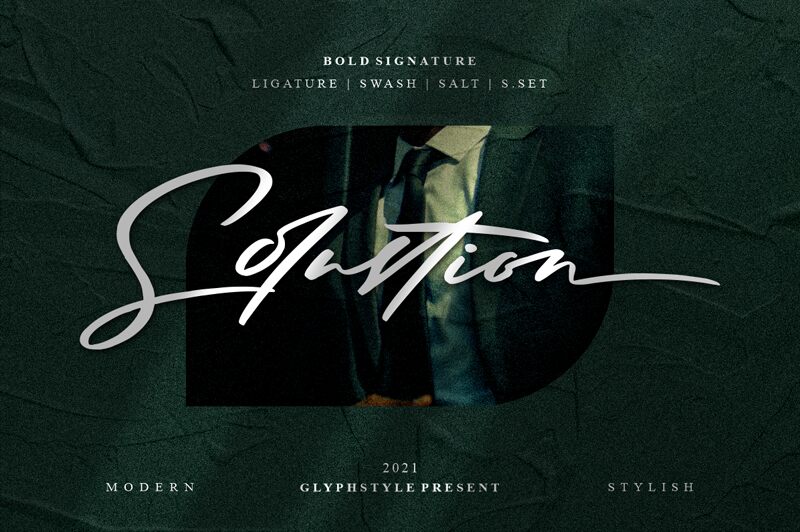
GlyphStyle's Solustion is a signature script font with a light weight. This elegant and graceful typeface is perfect for projects that require an eye-catching yet minimalistic feel, such as wedding invitations, logo designs, and calligraphy artworks.